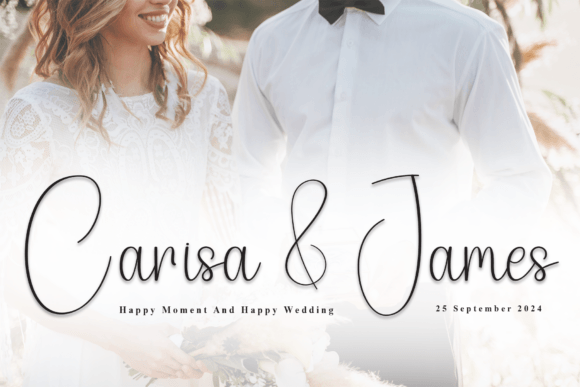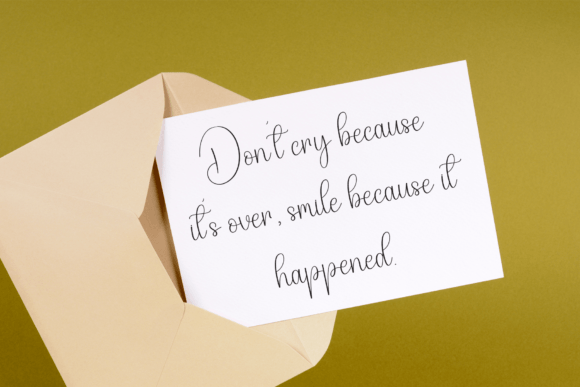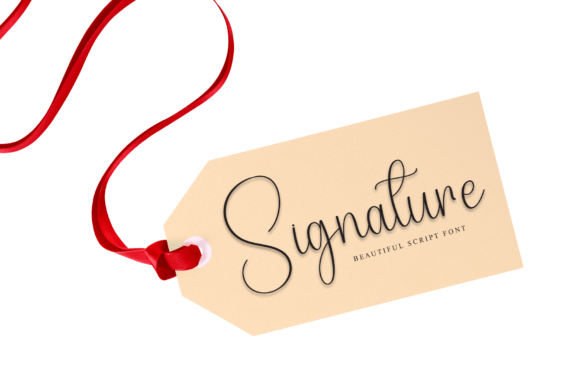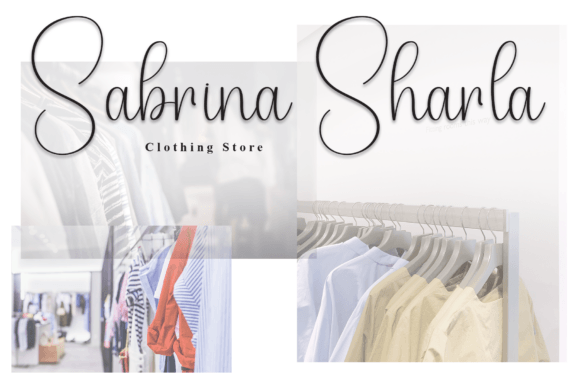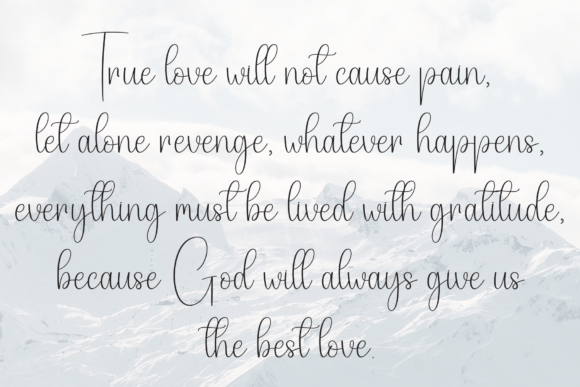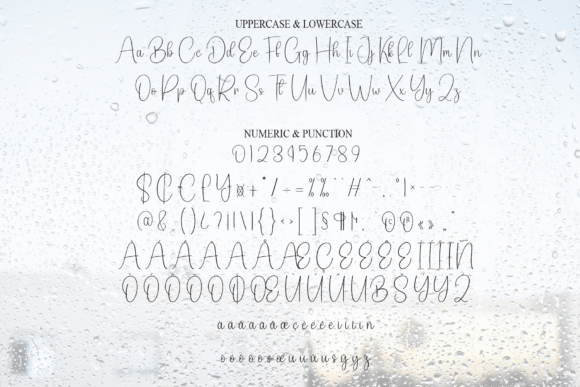
Introduction to Hello Rainday Font
Hello Rainday is a stylish handwritten script font exuding elegance and charm.
Its fluid strokes and natural flow create a captivating, sophisticated look Perfect for adding a personal touch to invitations, branding, or social media, this font brings a sense of warmth and creativity to any design.